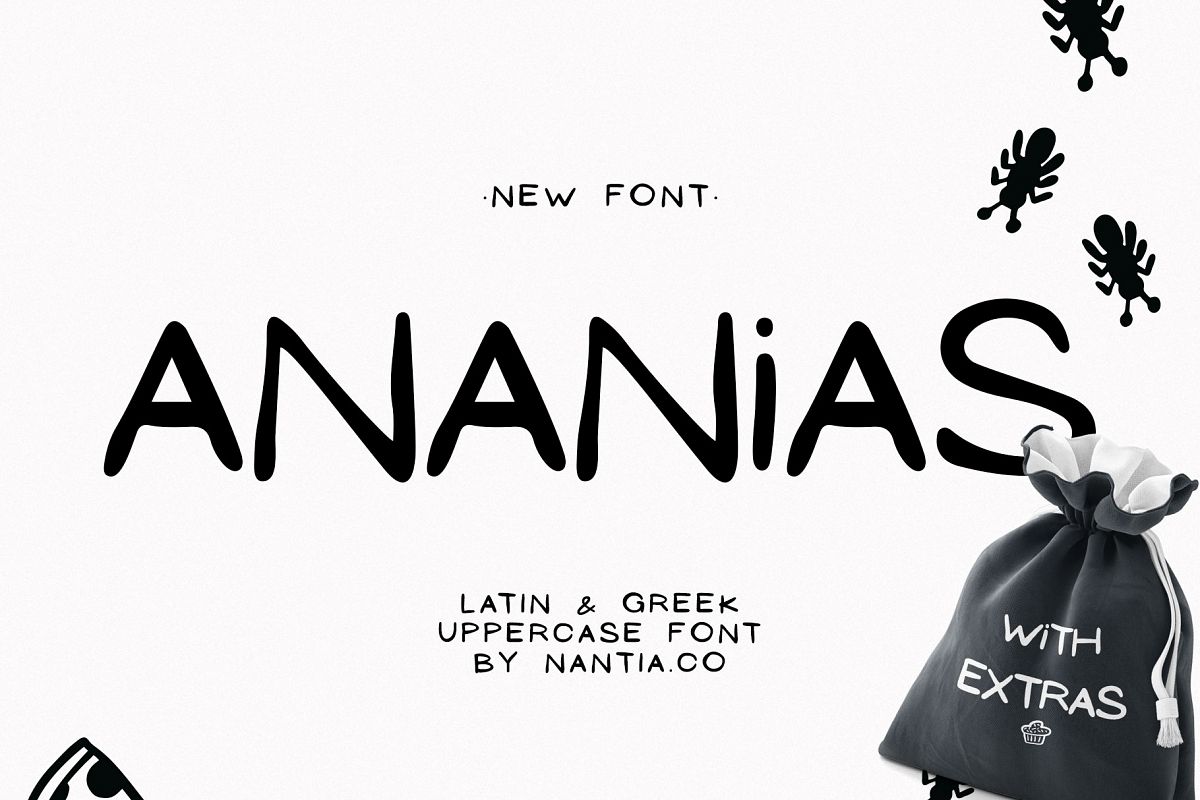
Ananias Doodle Font
This font is an adorable hand-made typeface with a lot of personality. With cute doodles icons in PUA encoding, this typeface can be a mighty companion to your next graphic design project. From "hand-written" quotes to product packaging, merchandise, and branding projects, this font is so versatile that it can cover them all.
• Latin Characters
• Greek Characters
• Numerals
• 30 icon doodles in PUA